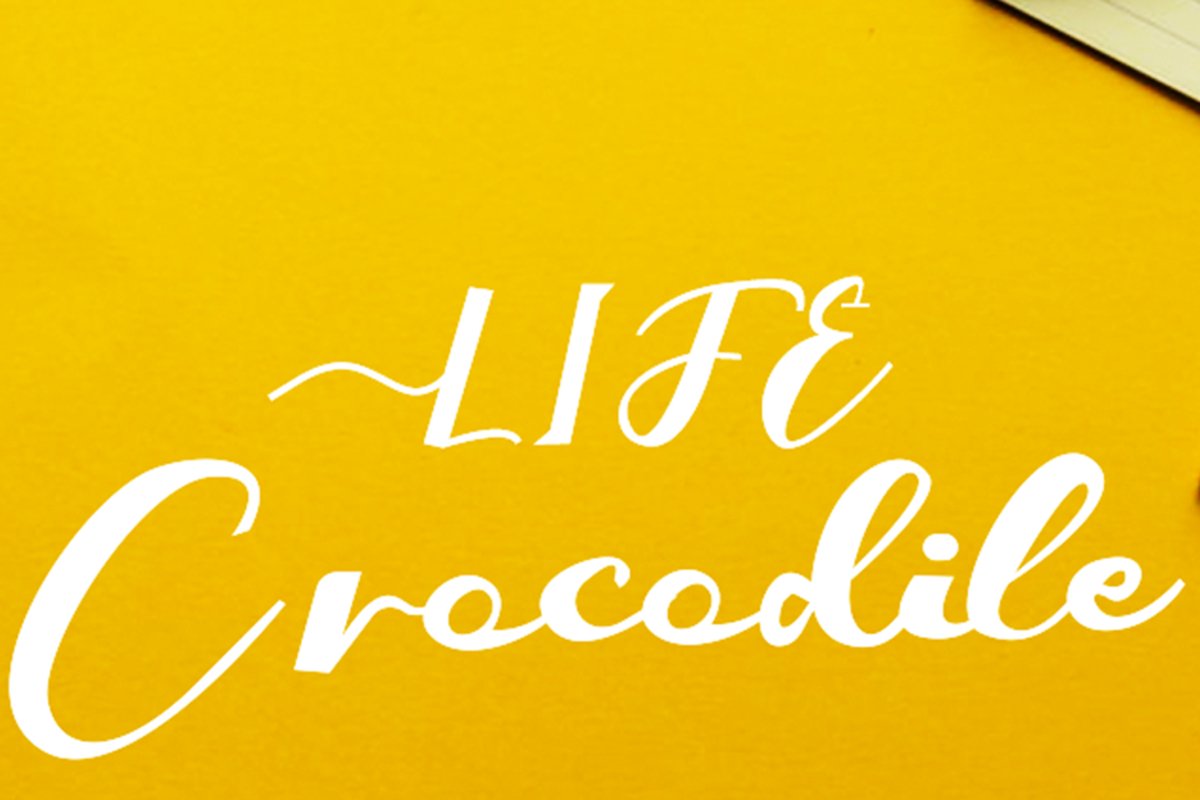
Crocodile
Crocodile is a magical handwritten font carefully created with a touch of elegance. This font is the perfect font for making original and outstanding designs. Use this gorgeous and unique handwritten font to bring any DIY project to life!
+More than 100+ Glyphs
+PUA-Encoded for many alternates and ligatures